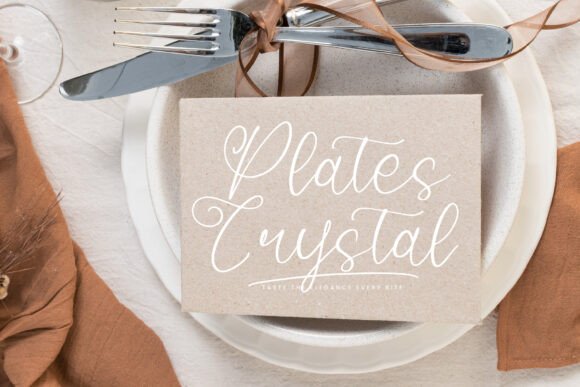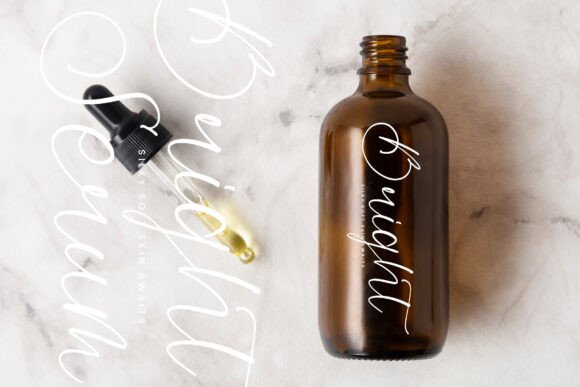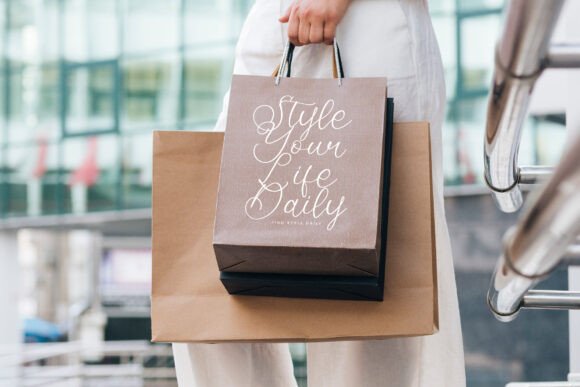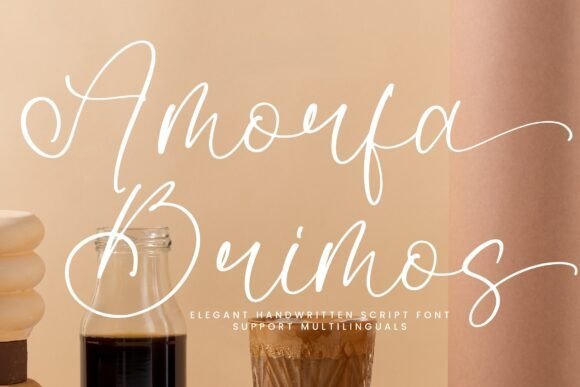
Introduction to Amorfa Brimos Font
Amorfa Brimos is a graceful handwritten script font designed to add a romantic and luxurious touch to any project.
With its soft curves, elegant swashes, and flowing rhythm, it’s perfect for wedding invitations, signature logos, feminine branding, and upscale packaging .
Key Features of Amorfa Brimos Font